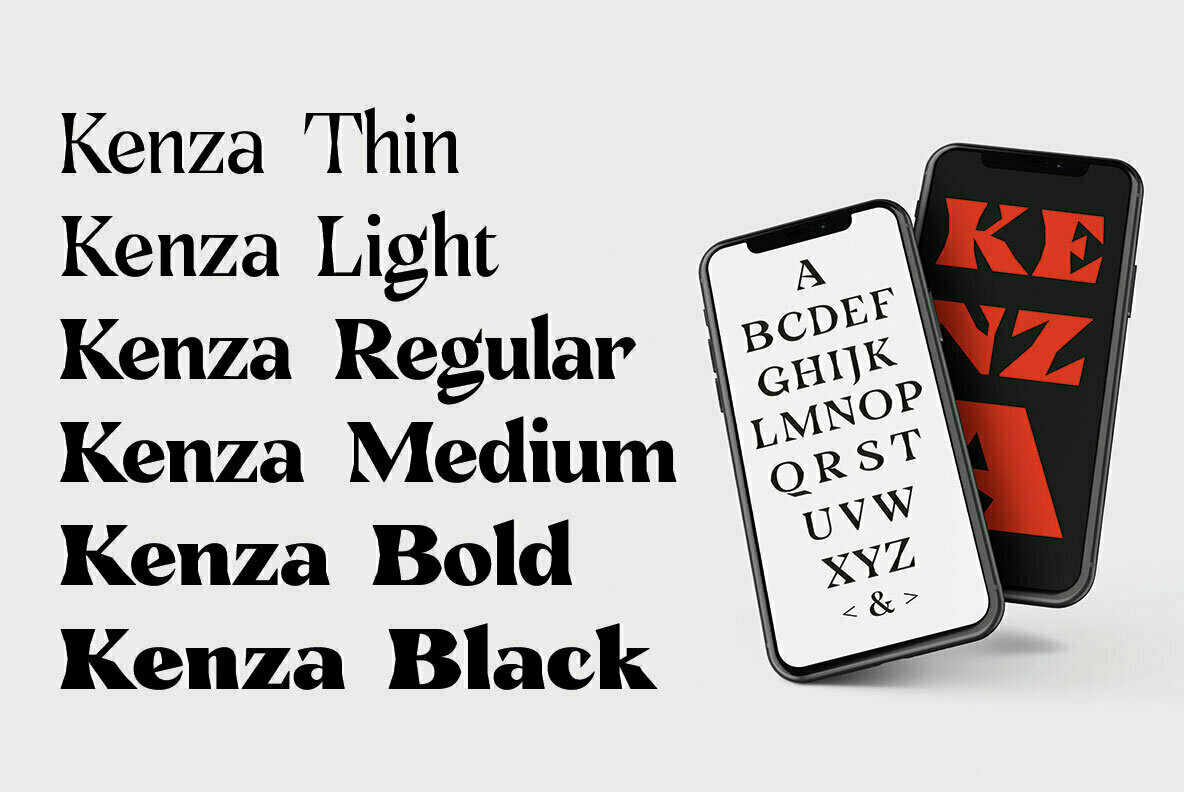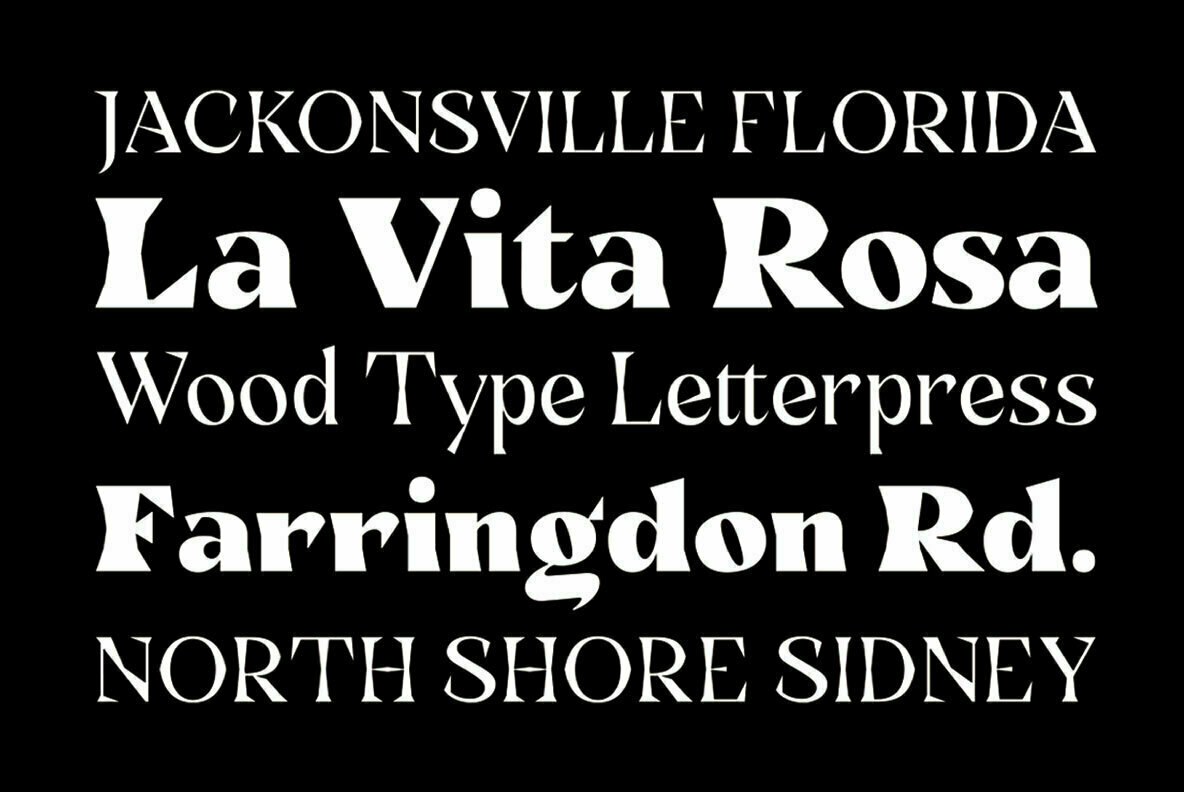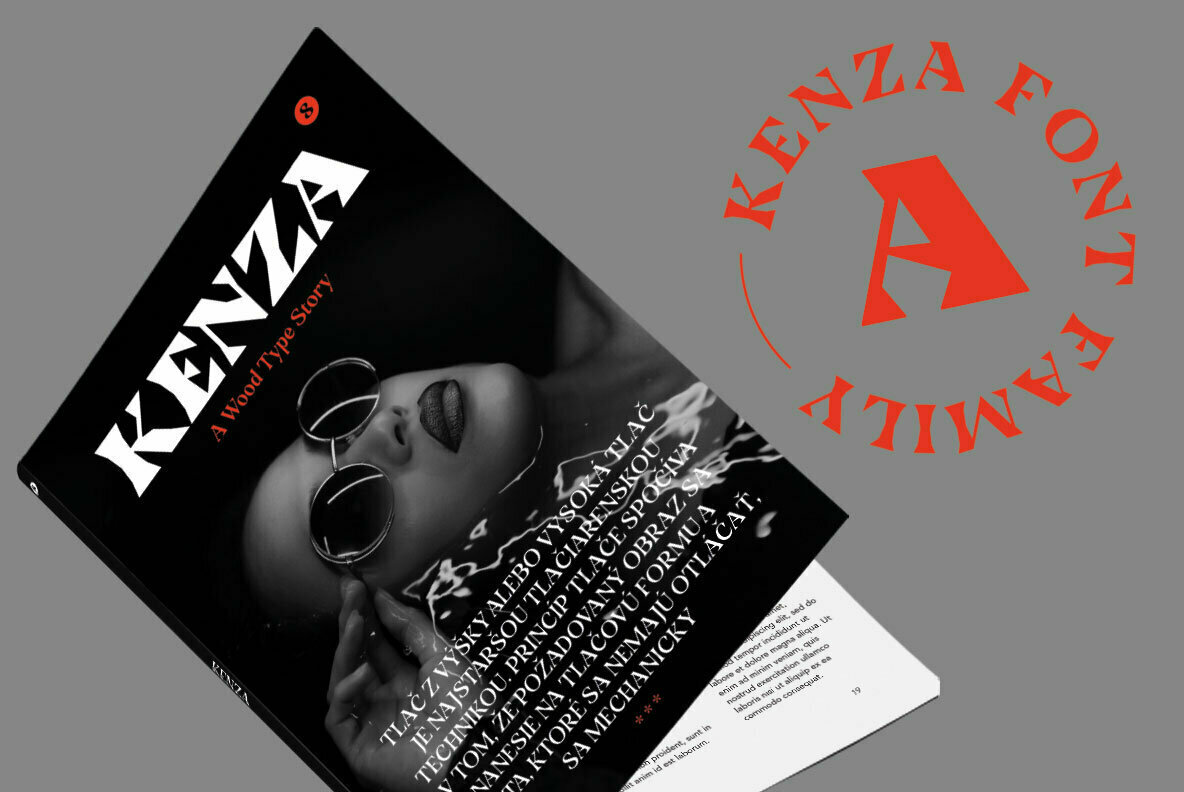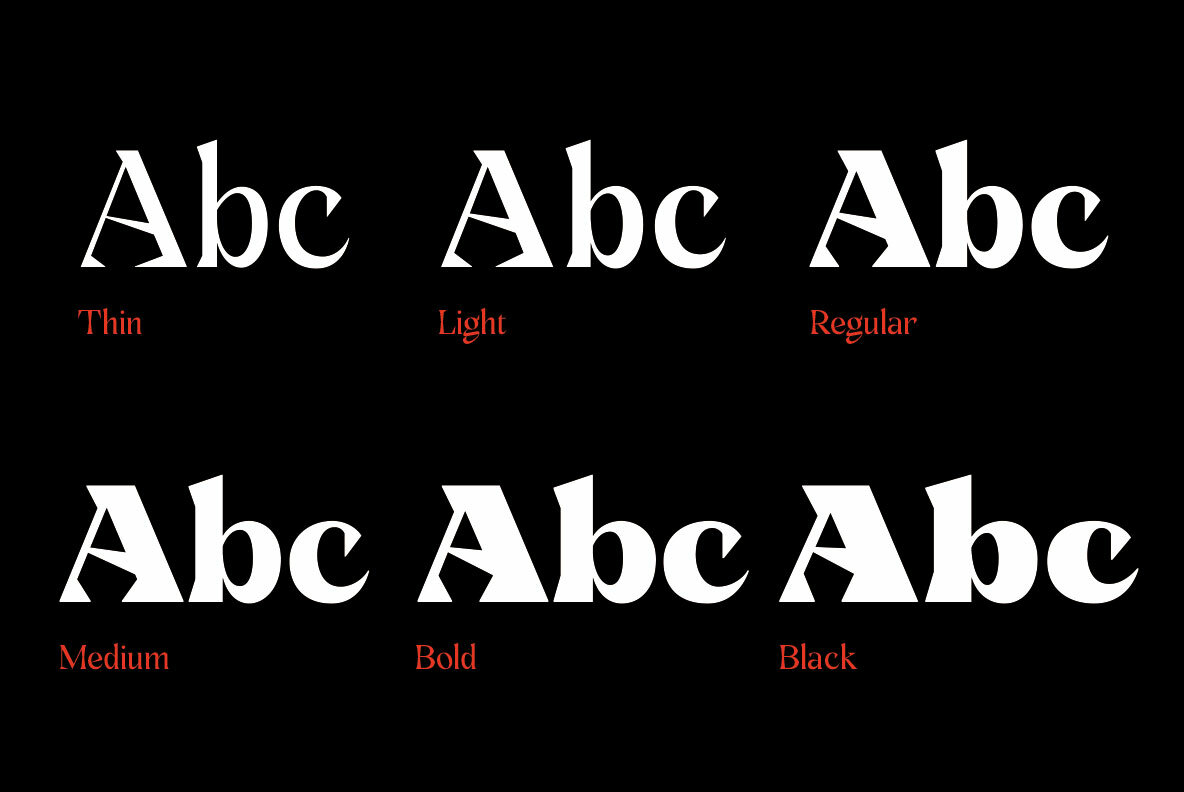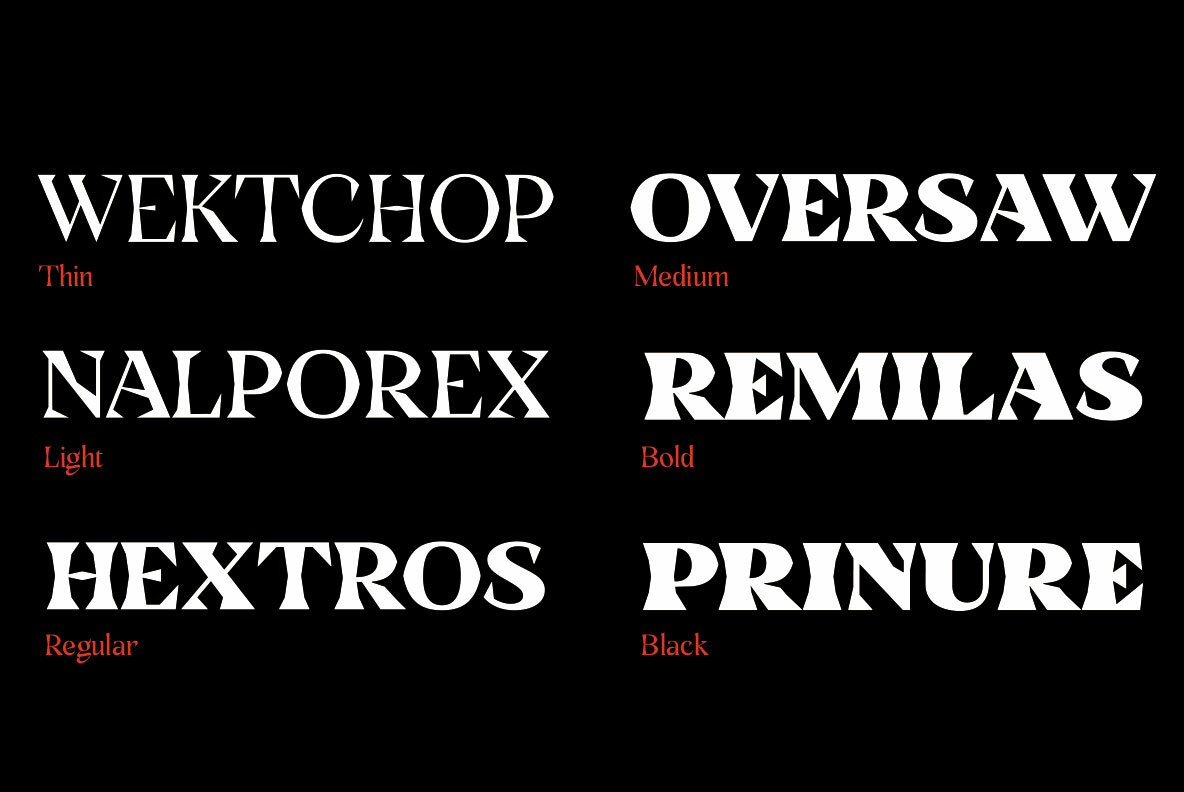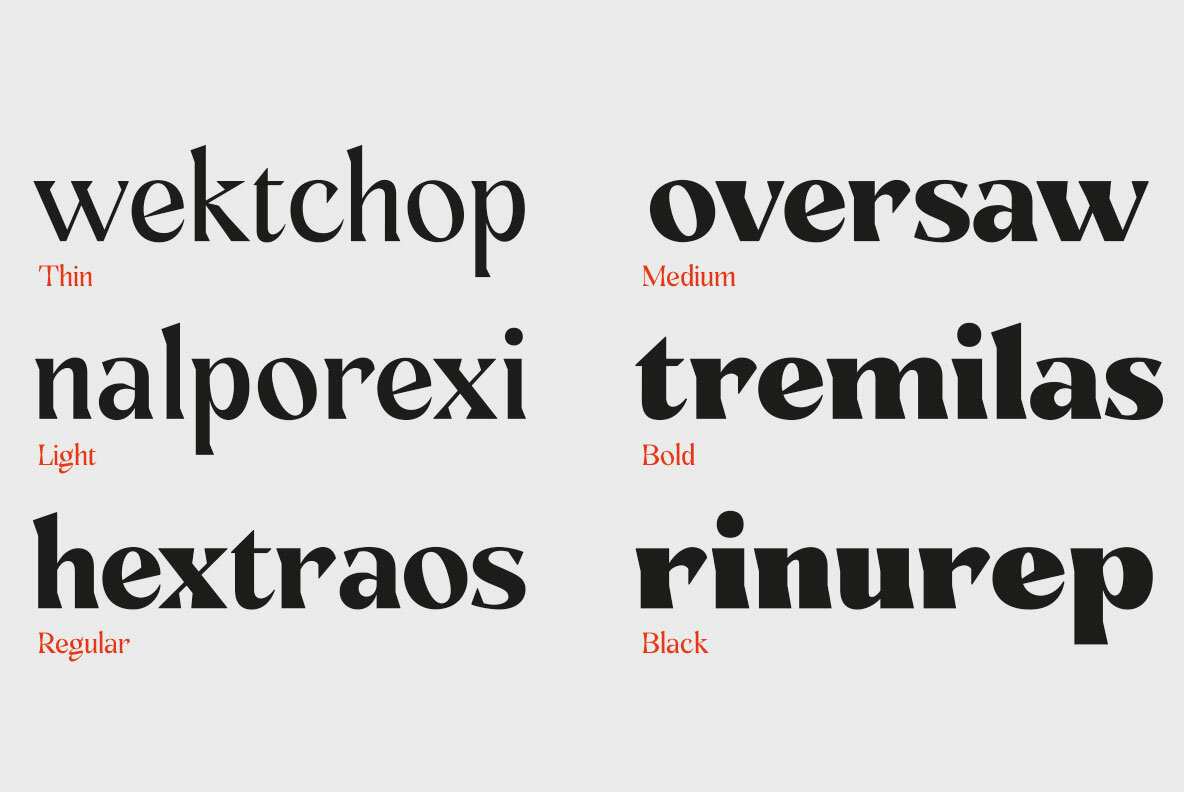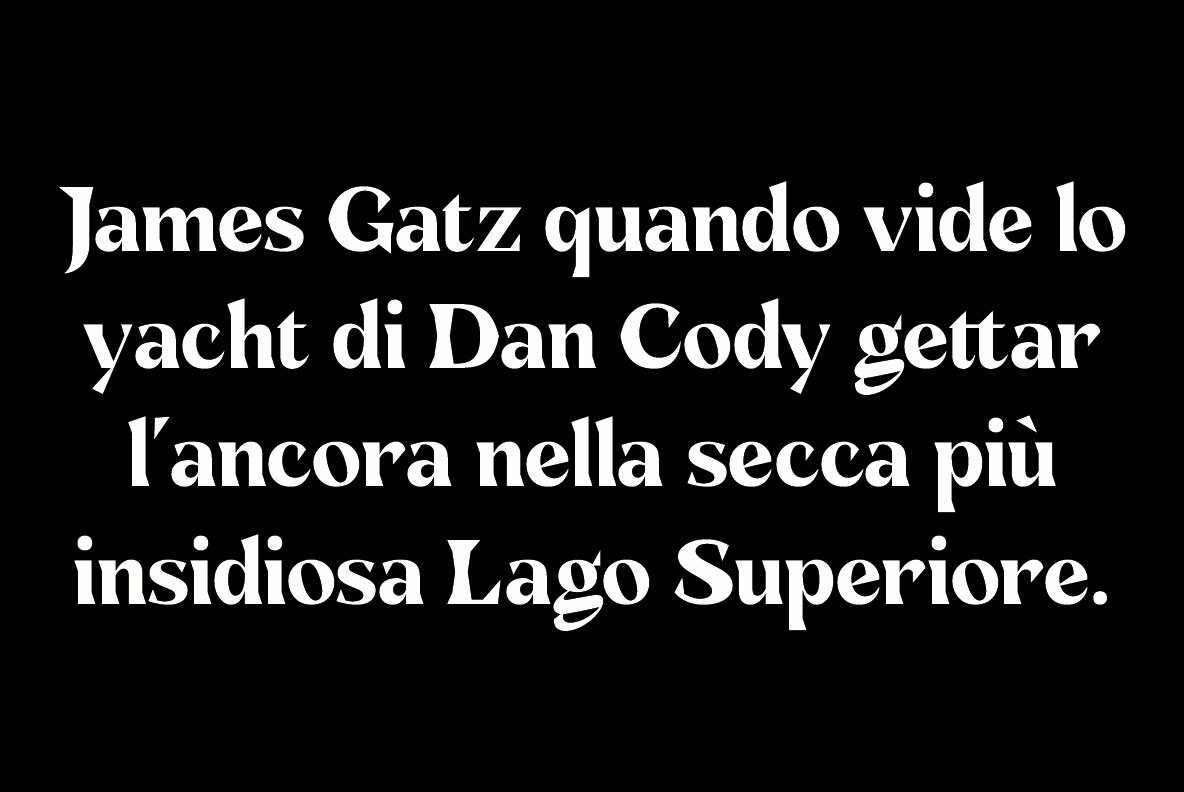
Kenza Font
Kenza is a serif font with geometric inspiration, drawn from the rich tradition of letterpress printing. Created by Alex Camacho, this typeface channels the robust aesthetics of hand-crafted wood letters that dominated the mid-20th century. Kenza's design is well-suited for making a striking impression in various design contexts.Kenza: A Bold Geometric Serif Font
Notable Attributes